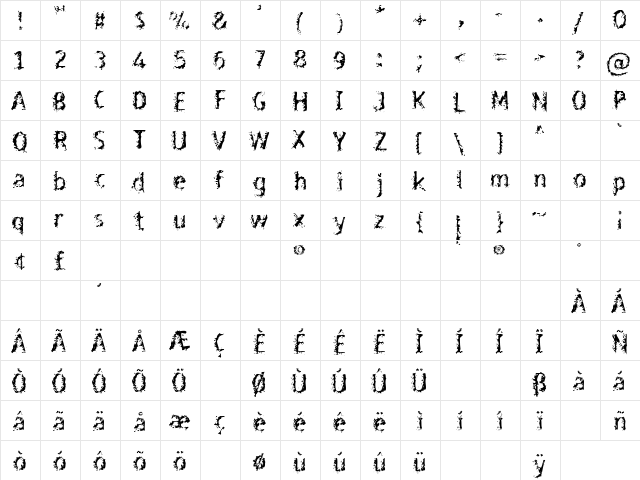
Bleed Regular Font Preview
Bleed Regular
Design Context for Bleed Typeface
Bleed is a composed and adaptable typeface that performs quietly and consistently across a wide range of design contexts.